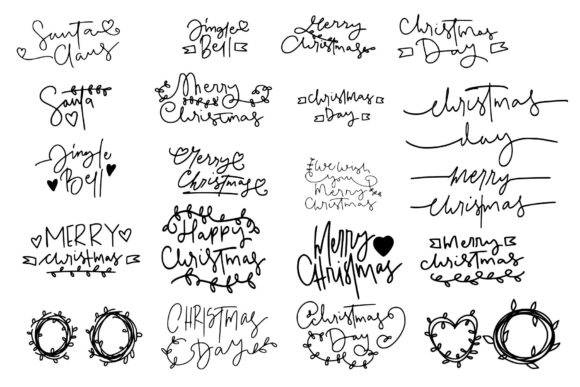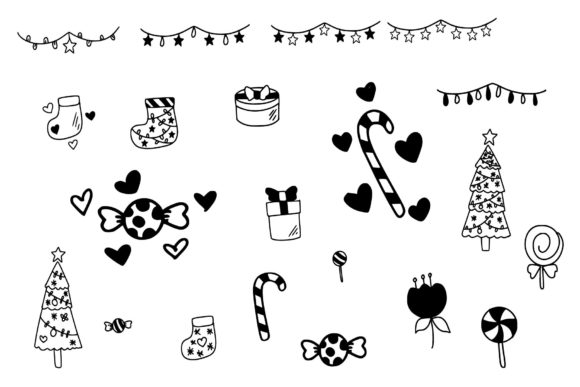
Introduction to Christmas Ornaments Font
As the holiday season approaches, many of us find ourselves brainstorming ideas for our next creative project. Perhaps you’re designing festive invitations, creating a holiday-themed scrapbook, or simply looking for a unique way to add some cheer to your stationery. Whatever the case, you’re in luck, because we’ve got just the thing: the Christmas Ornaments Font. This charming dingbats font is the perfect addition to any design, offering a high-quality, transparent background that will elevate your work to the next level.
Whether you’re a seasoned designer or just starting out, the Christmas Ornaments Font is an invaluable resource that’s sure to bring your creative visions to life. And the best part? It’s available for free download, making it an accessible and affordable design resource for any project. So why not give it a try and see what kind of magic you can create with this delightful font?
Key Features of Christmas Ornaments Font
- Unique, intricate designs featuring Christmas ornaments with transparent background
- Perfect for adding a touch of festive charm to your designs, whether digital or print
- Excellent choice for designers, crafters, and artists looking for a special and creative design element
Honest Review: Christmas Ornaments Font
I recently had the chance to work with the Christmas Ornaments Font, and I must say it’s a lovely addition to any design project. As a designer, I appreciate high-quality fonts that can elevate my work. This font is a great resource for anyone looking to add a festive touch to their creative project.
- ✨ High-quality design: The font is crisp, clean, and has a professional look.
- ✨ Free download: I love that it’s available for free download, making it accessible to designers of all levels.
- ✨ Transparent background: This feature is super helpful when working with designs that require a transparent background.
- ⚠️ Limited font styles: While the font is beautiful, it would be nice to have more style options to choose from.
- ⚠️ Not suitable for all projects: Due to its festive nature, this font might not be the best fit for all design projects.
Overall, I’m impressed with the Christmas Ornaments Font. It’s a great resource for designers looking to add a touch of holiday cheer to their work. With a few tweaks, it could be even more versatile and useful.
When using the Christmas Ornaments Font, keep in mind the following tips: 1) Experiment with different font sizes and colors to create a unique look, 2) Use the font in combination with other design elements to add depth and interest, and 3) Don’t be afraid to get creative and try new things!
The Christmas Ornaments Font is perfect for a variety of creative projects, including: 1) Holiday greeting cards, 2) Party invitations, 3) Social media graphics, and 4) Website designs. Its high-quality design makes it a great addition to any project.